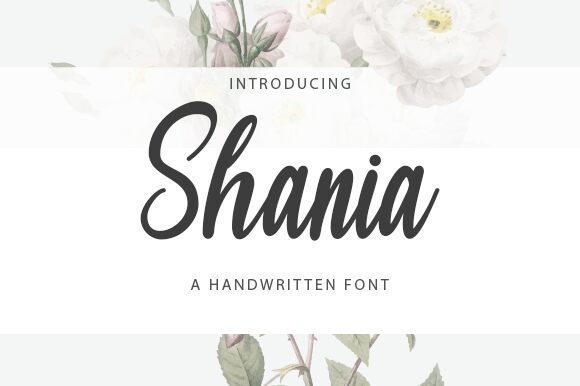
Shania
Shania, the semi-light calligraphy font by Graphix Line Studio, is perfect for creating elegant and refined designs. Its condensed width allows for a sleek and sophisticated appearance, making it ideal for use in branding materials, wedding invitations, and high-end fashion projects. The flowing curves of Shania's calligraphic style add a touch of femininity to any design project, while its subtle weight ensures readability at any size. Whether you're designing a luxury magazine spread or a delicate logo mark, Shania is the perfect font choice to elevate your work to the next level.